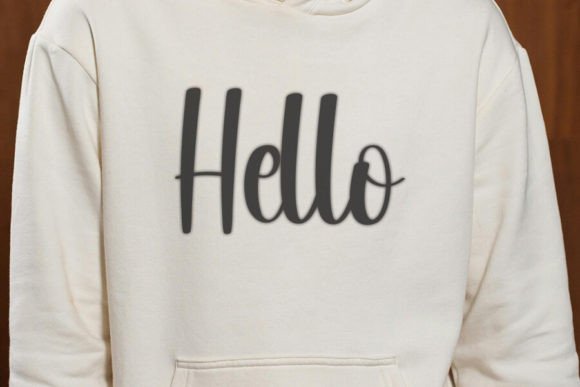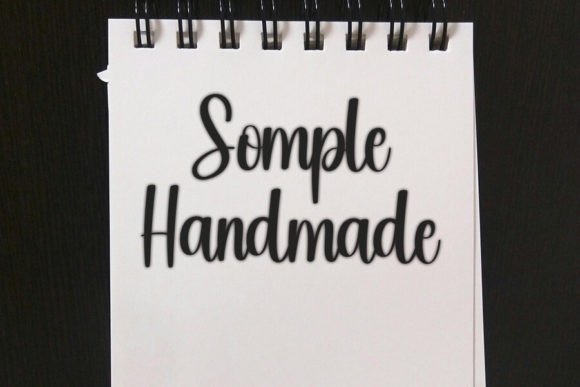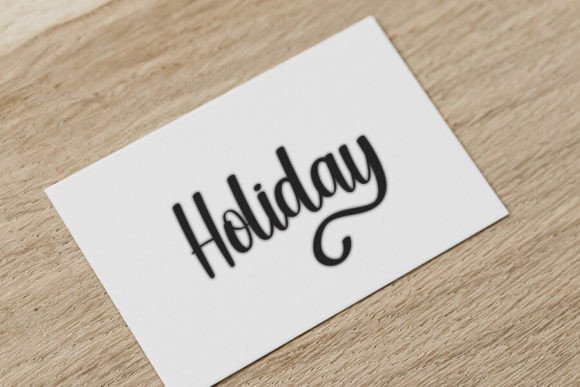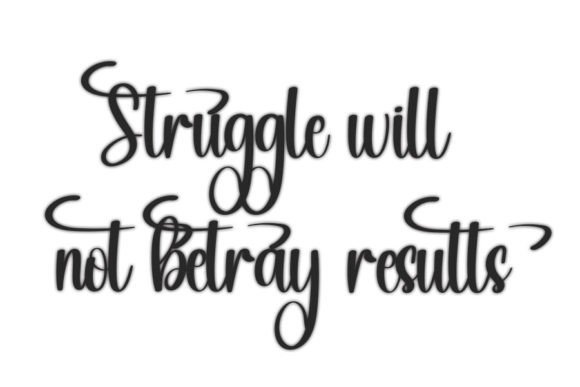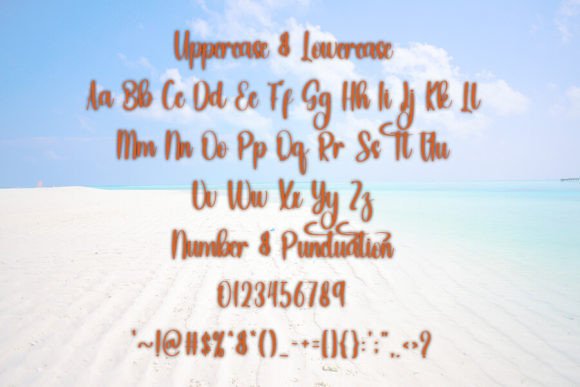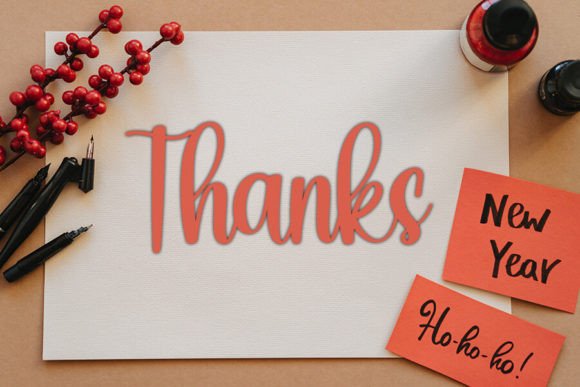
Introducing Anting Font: A Modern Calligraphy Design for Creative Projects
Are you a designer or crafter looking for a unique and beautiful font to elevate your creative projects? Look no further than Anting Font, a modern calligraphy design that is sure to impress. With its casual and elegant style, Anting Font is perfect for a wide range of applications, from logos and product packaging to wedding invitations and branding.
What Makes Anting Font Special?
Anting Font is a carefully crafted calligraphy design that features a range of beautiful swashes and flourishes. Its modern and fresh style makes it perfect for designers and crafters who want to add a touch of elegance and sophistication to their work. Whether you’re creating a logo, designing a wedding invitation, or crafting a poster, Anting Font is the perfect choice.
Key Features of Anting Font
- Modern Calligraphy Design: Anting Font features a modern calligraphy design that is both elegant and casual.
- Regular Style: The font comes in a regular style, making it easy to read and use in a variety of applications.
- Swashes and Flourishes: Anting Font features a range of beautiful swashes and flourishes that add a touch of elegance and sophistication to your work.
Tips for Using Anting Font
Here are a few tips for using Anting Font in your creative projects:
- Use it for Headlines and Titles: Anting Font is perfect for headlines and titles, where its elegant style can really shine.
- Add Swashes and Flourishes: Don’t be afraid to add swashes and flourishes to your text to give it a more elegant and sophisticated look.
- Experiment with Different Sizes: Anting Font looks great in a variety of sizes, from small and delicate to large and bold.
- Pair it with Other Fonts: Anting Font pairs well with a variety of other fonts, so don’t be afraid to experiment with different combinations.
Ideas for Using Anting Font
Anting Font is a versatile font that can be used in a wide range of creative projects. Here are a few ideas to get you started:
- Logos and Branding: Use Anting Font to create a beautiful and elegant logo for your business or brand.
- Wedding Invitations: Anting Font is perfect for wedding invitations, where its elegant style can add a touch of sophistication and romance.
- Product Packaging: Use Anting Font to add a touch of elegance and sophistication to your product packaging.
- Posters and Flyers: Anting Font is great for posters and flyers, where its bold and elegant style can really stand out.
- Signage and Labels: Use Anting Font to create beautiful and elegant signage and labels for your business or brand.
Anting Font is a beautiful and elegant modern calligraphy design that is perfect for a wide range of creative projects. With its casual and elegant style, swashes and flourishes, and PUA Unicode encoding, Anting Font is a versatile font that can be used in everything from logos and branding to wedding invitations and product packaging. Whether you’re a designer or crafter, Anting Font is a great choice for anyone looking to add a touch of elegance and sophistication to their work.